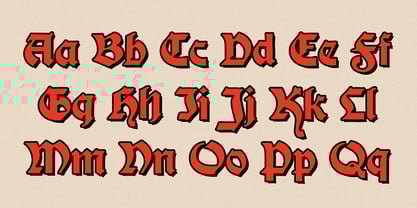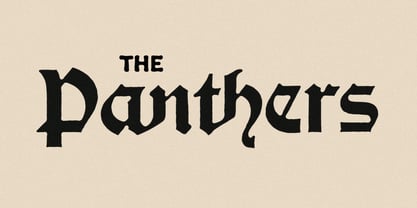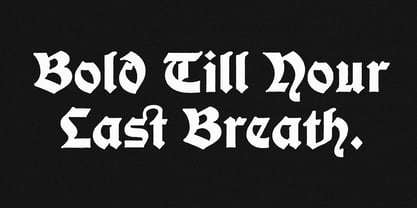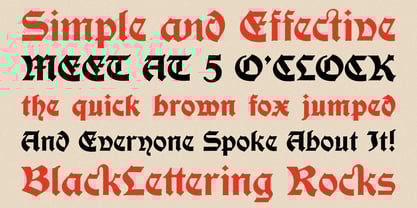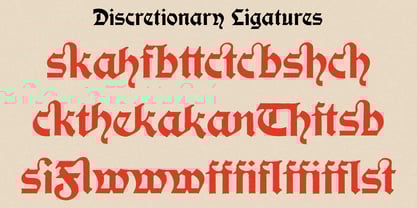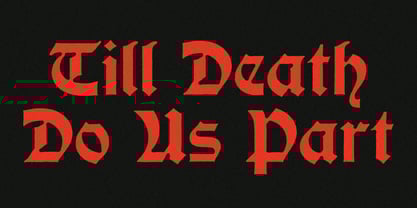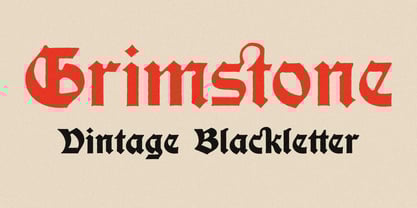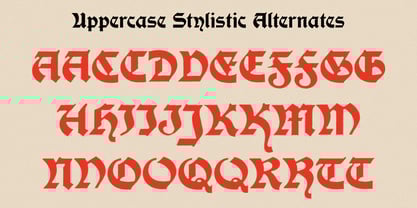
TC Grimstone
by Tom Chalky
Grimstone draws from vintage blackletter specimens, bringing together those classic angular shapes with softer, rounded edges for a look that feels both old-world and fresh. It’s got a modern medieval vibe that works perfectly for anything from logos and branding to posters and album covers.
With Regular and Bold weights, plus stylistic alternates and ligatures, Grimstone gives you the flexibility to experiment with different looks without losing that authentic Blackletter feel. If you're after a font that has both presence and a bit of warmth, Grimstone’s unique blend of historical and modern touches might fit the bill!
• 25 Discretionary Ligatures
• 25 Stylistic Alternates
• Regular and Bold Weights